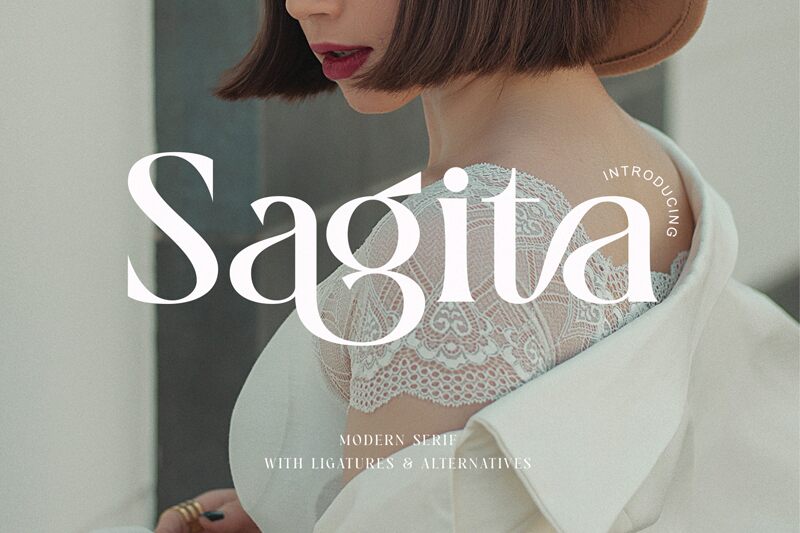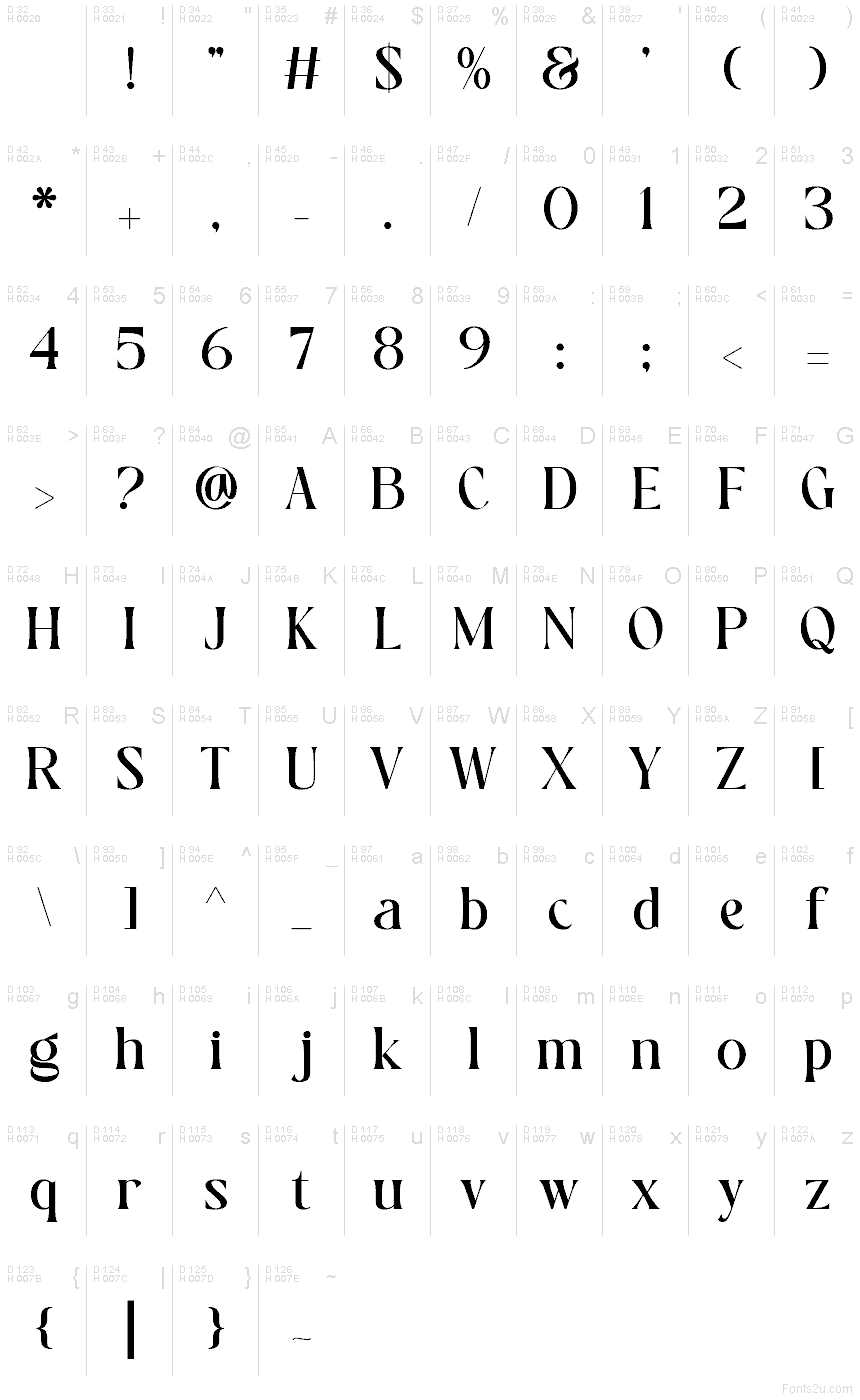
Sagita
Sagita font by Muflieart is a free serif font. Its sculpted curves carve deep, inky hollows while knife‑edge serifs snap to a crisp finish, giving each word a chiselled, boutique feel. The rhythm feels theatrical yet controlled, with soft bowls meeting sudden cuts that catch the light like polished stone.
Using Sagita, headlines gain a luxe hush—confident without shouting. It shines on editorial titles, boutique logos, beauty packaging, wine labels, posters, and refined invitations, where its dramatic shapes add atmosphere and memorability. Pair this free font with a clean, low‑contrast grotesque for supporting text, and let Sagita take the lead at larger sizes.